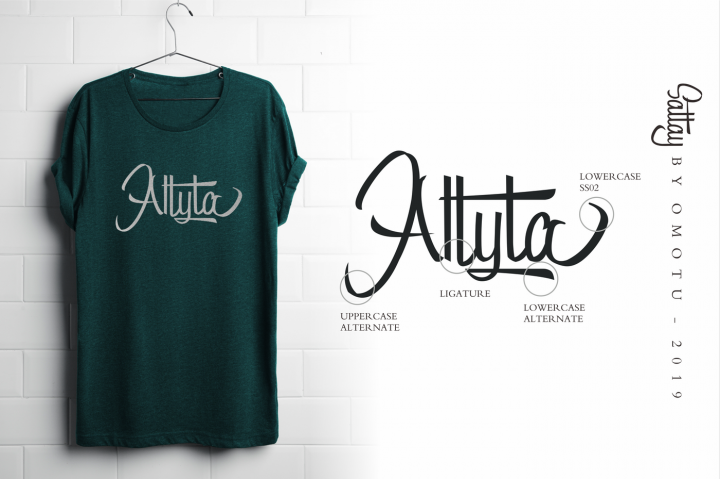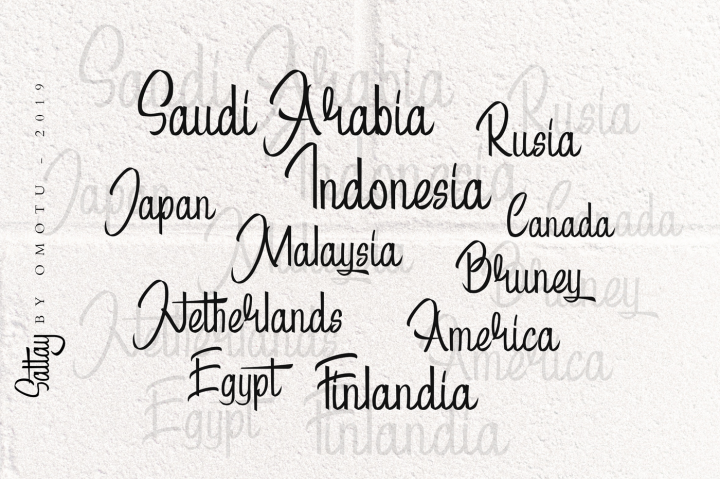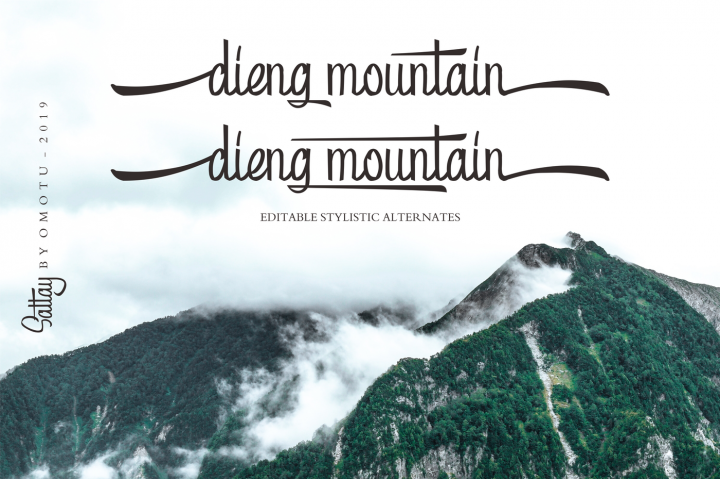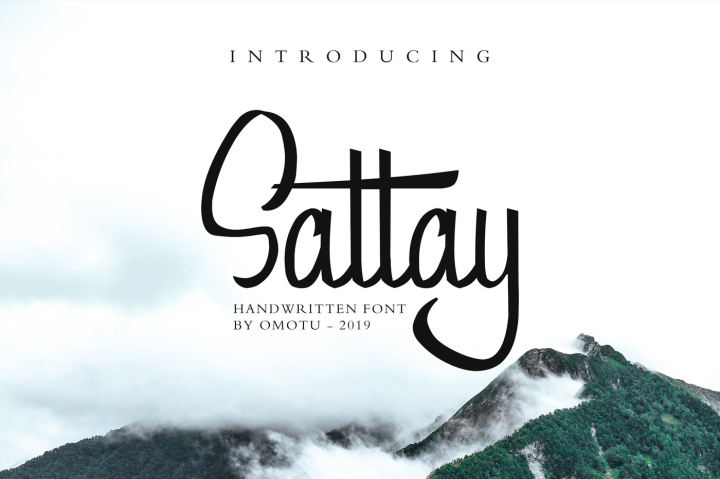
Sattay Script Font
Hello! Start a new day with a handwritten and calligraphy style font. Introducing Sattay Font. Sattay designed and shared by Omotu. Sattay – a new modern & fresh script with a handwritten and script style make this font looks elegant, stylish and perfect for any awesome projects that need handwriting taste. Sattay would perfect for photography, watermark, social media posts, advertisements, logos & branding, invitation, product designs, label, stationery, wedding designs, product packaging, special events or anything that need handwriting taste.